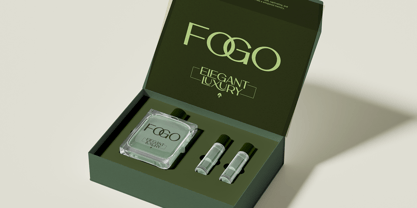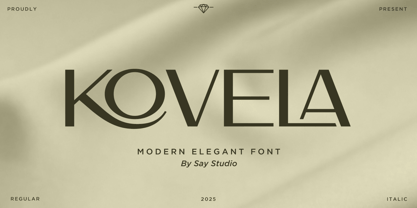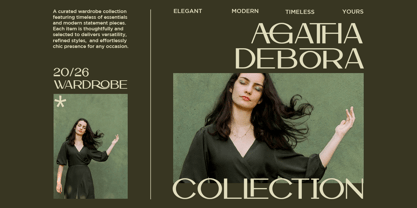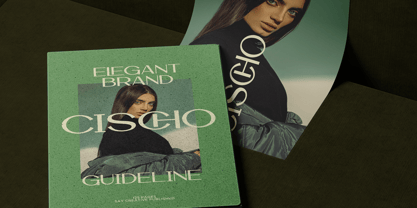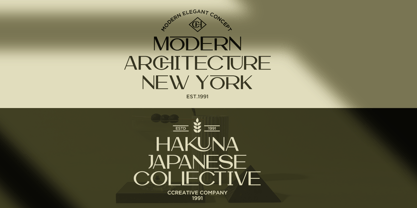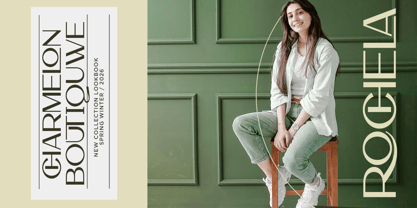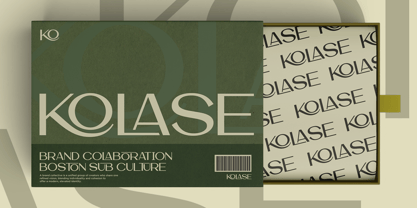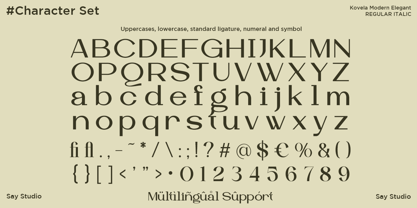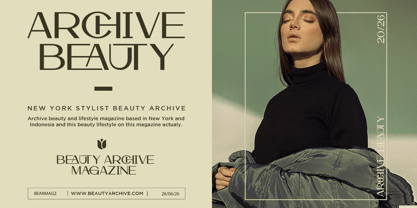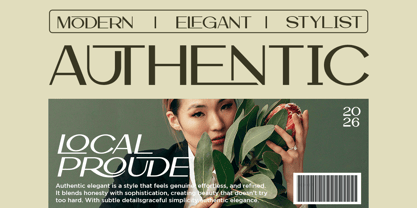
Kovela
by Say Studio
The Kovela Font Family was designed by Mussyayin and published by Say Studio. Kovela contains 2 styles and family package options. More about this family
Kovela is a modern elegant font that blends minimalist sophistication with refined luxury. Featuring graceful ligatures, stylish alternates, and balanced geometric forms, Kovela creates a clean yet distinctive visual identity that feels timeless across both digital and print applications. Its contemporary aesthetic is designed to help brands communicate confidence, elegance, and premium quality.
Ideal for luxury branding, fashion campaigns, cosmetics, skincare, jewelry, architecture, interior design, magazines, editorial layouts, product packaging, boutique businesses, and modern lifestyle brands, Kovela offers exceptional versatility. Complete with multilingual support, ligatures, stylistic alternates, numerals, and punctuation, it provides professional typography for designers seeking polished and memorable results.
Whether you're creating elegant logos, sophisticated websites, premium packaging, social media content, business identities, invitation designs, magazines, or advertising campaigns, Kovela delivers a refined modern look with effortless readability. Its elegant character and luxurious details make it the perfect typeface for brands that value simplicity, beauty, and timeless design.
• Regular and Italic
• Stylistic Ligatures
• Uppercase and Lowercase
• Number, Symbols, and Punctuation
• Multi Language Support